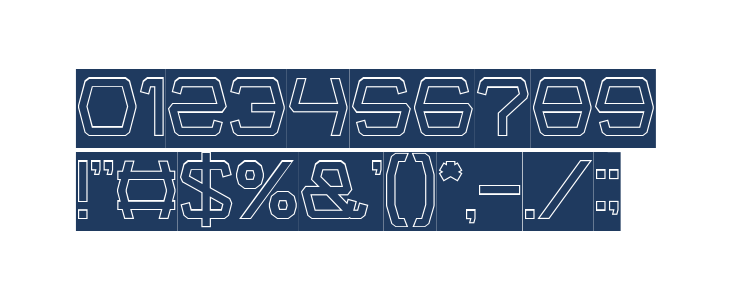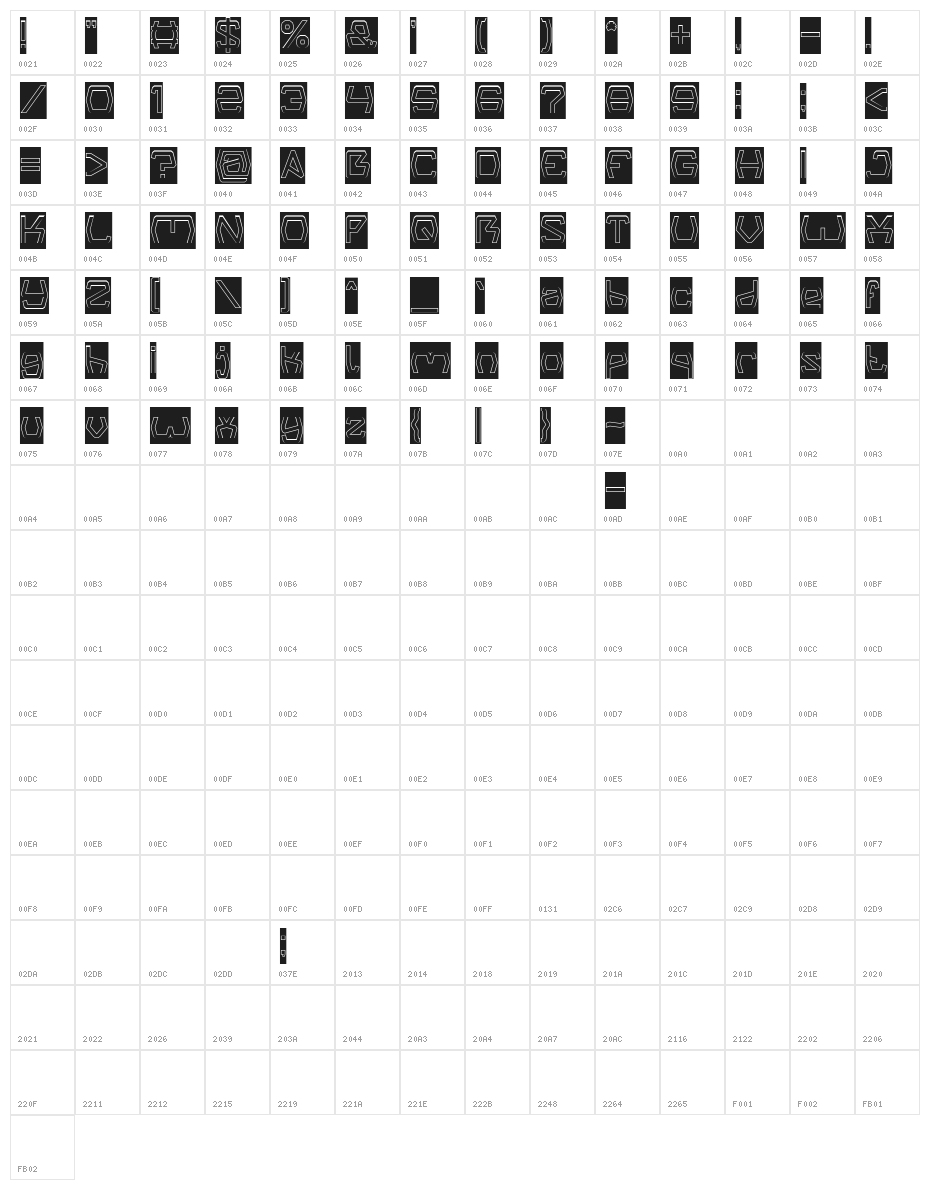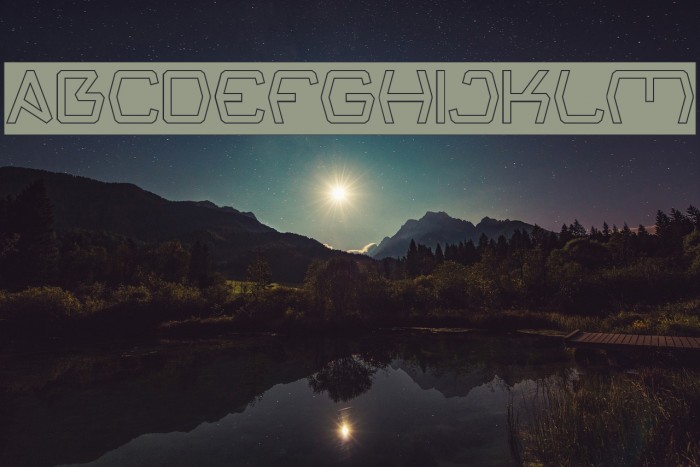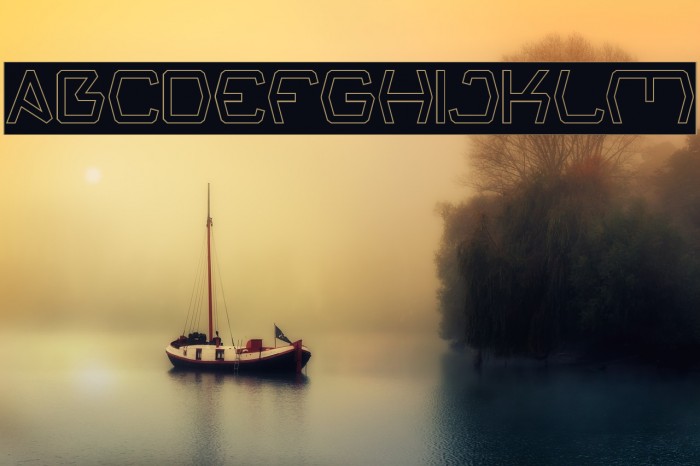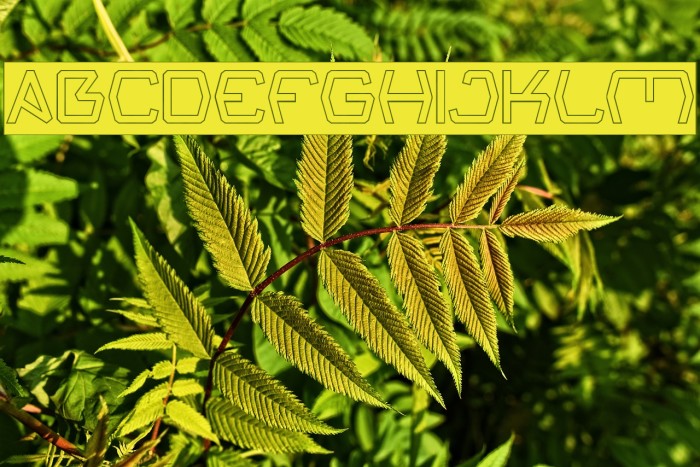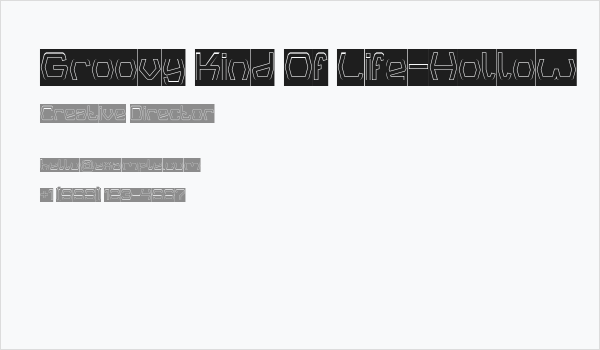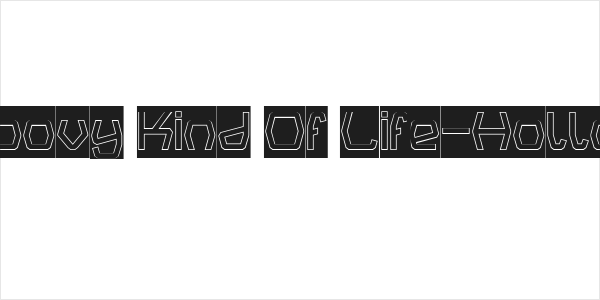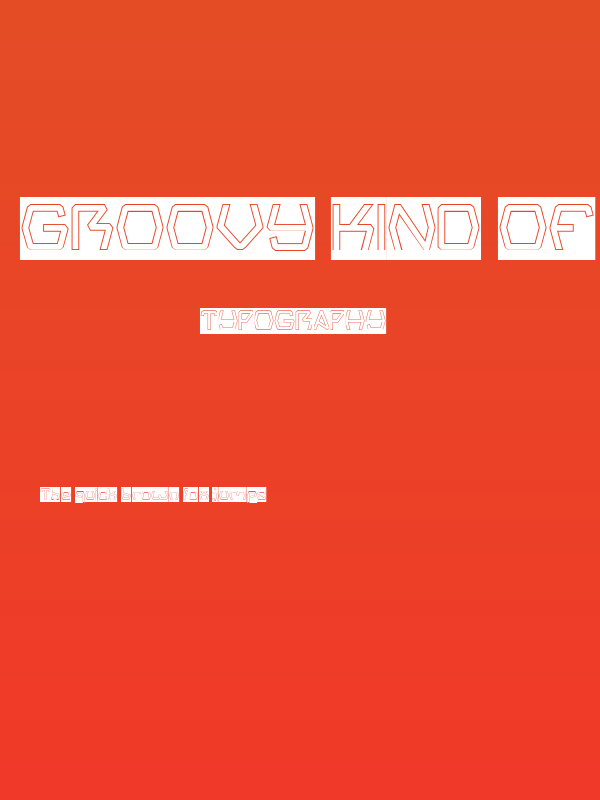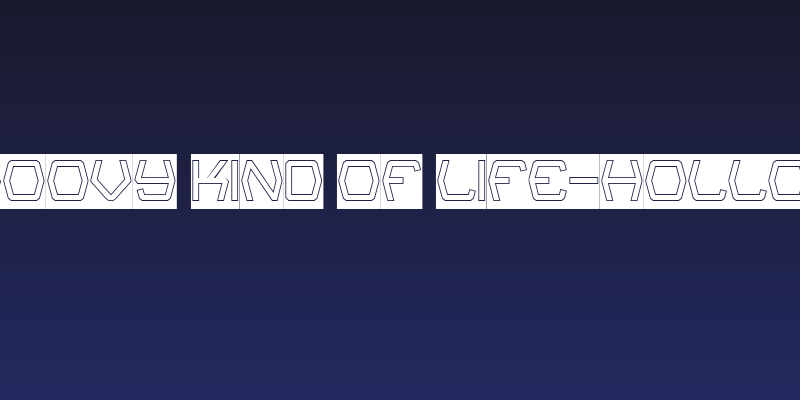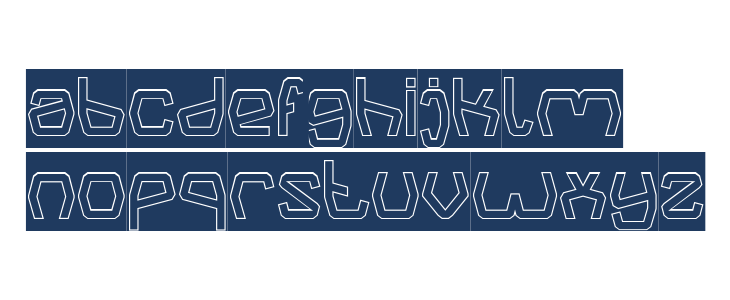
Groovy Kind Of Life-Hollow Font
Groovy Kind Of Life-Hollow Description
This font features a unique hollow design with a geometric and angular style. Each character is outlined, creating a bold and striking appearance. The uppercase and lowercase letters maintain a consistent aesthetic, with sharp edges and a futuristic look. The numbers and special characters follow the same design principles, ensuring uniformity across all glyphs. This font's hollow nature gives it a distinctive, eye-catching quality that stands out in any design.
| Proposed Projects | Ideal for sci-fi themed projects, modern posters, digital artwork, and branding that requires a bold statement. |